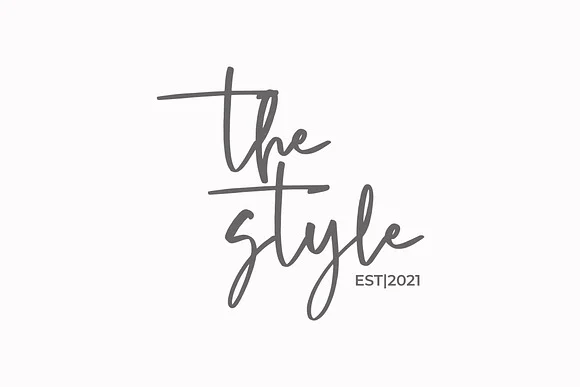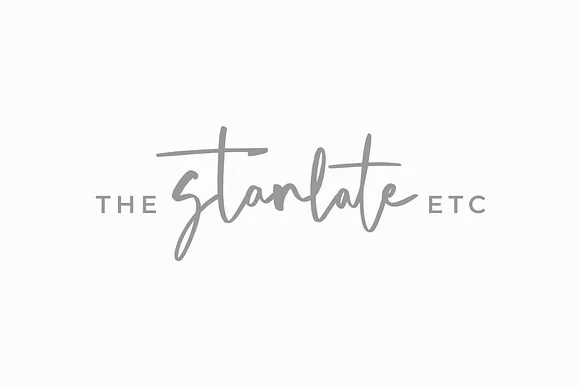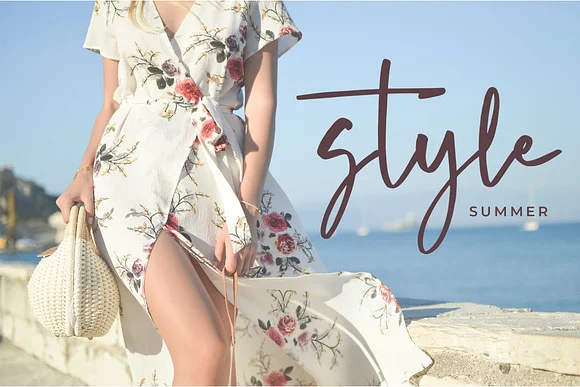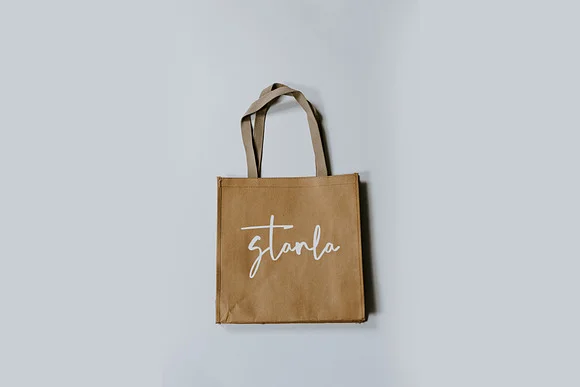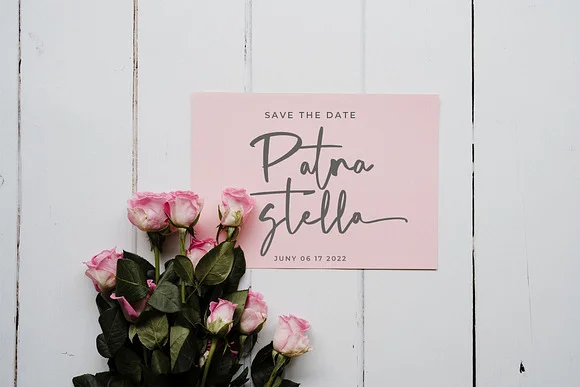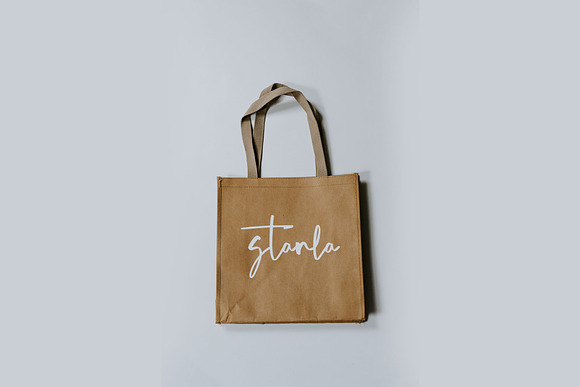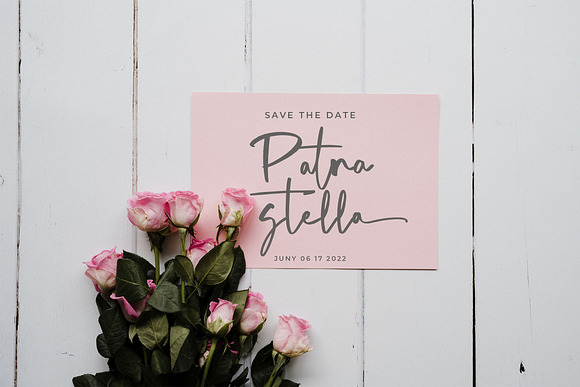
Petraloka Brush Script Font
A good typeface communicates tone before a single word is read. Petraloka Brush Script achieves this through visual harmony and precise spacing. The typeface brings an elegant, calligraphic sensibility to a broad range of creative disciplines, with distinctive character without sacrificing readability that holds up whether the work is print-first or screen-first.
In practice, Petraloka Brush Script proves particularly effective for event signage, packaging design, boutique logos, poster creation, logo design. Designers reaching for it find that the type decisions feel resolved rather than laboured — a useful quality when client timelines are tight.
The range of applications extends to product labels, luxury stationery, signage systems, perfume labels. That breadth is deliberate: the proportions and spacing were stress-tested across a wide range of mock briefs before the typeface was finalised.
Pairing Petraloka Brush Script with a contrasting serif or a neutral grotesque gives mixed-format layouts a clear visual grammar without requiring constant size adjustments to establish hierarchy.
Freelance designers across print and digital disciplines find Petraloka Brush Script a reliable choice for projects that demand both personality and restraint. The design avoids the self-conscious quirkiness that dates quickly, settling instead for considered distinctiveness that holds up over time.